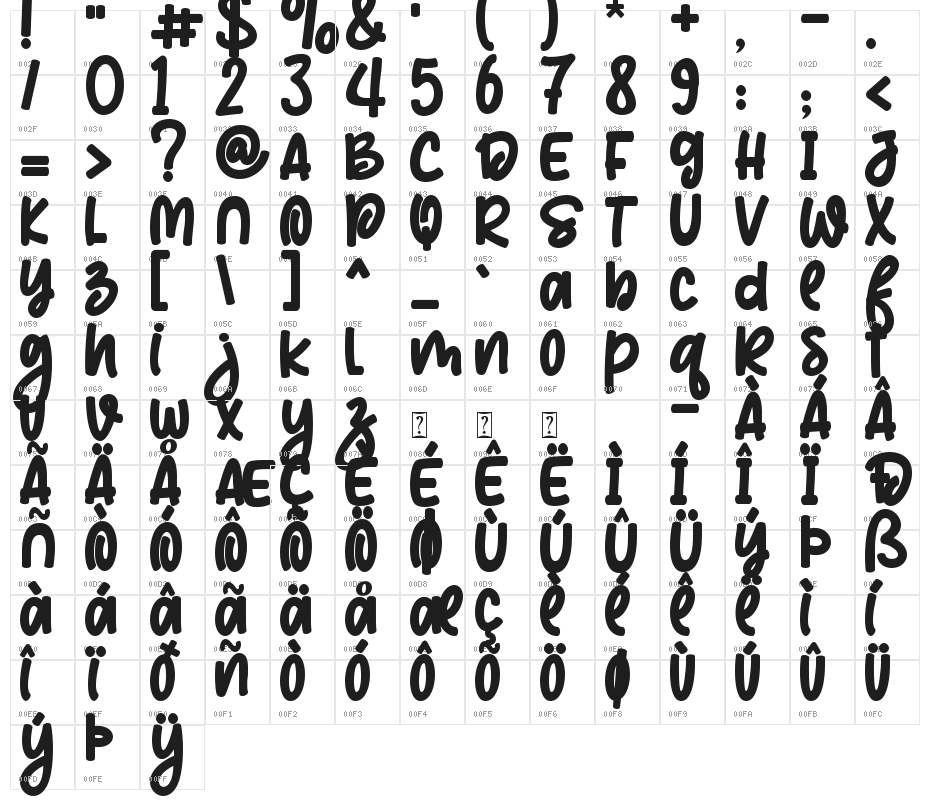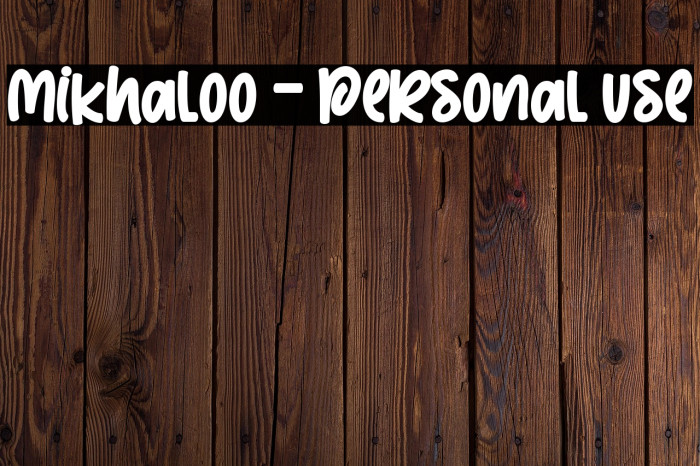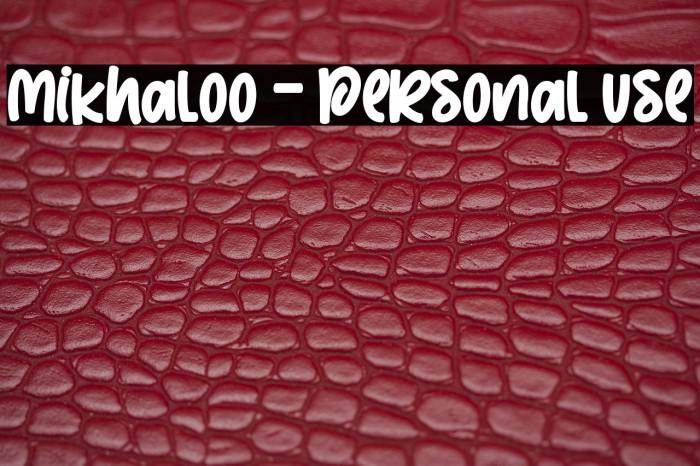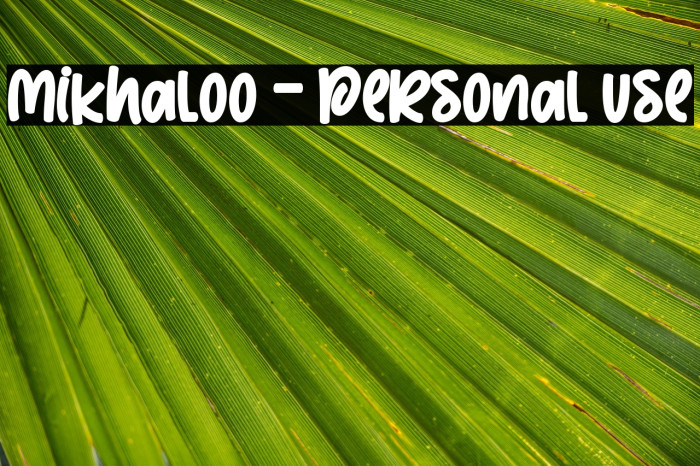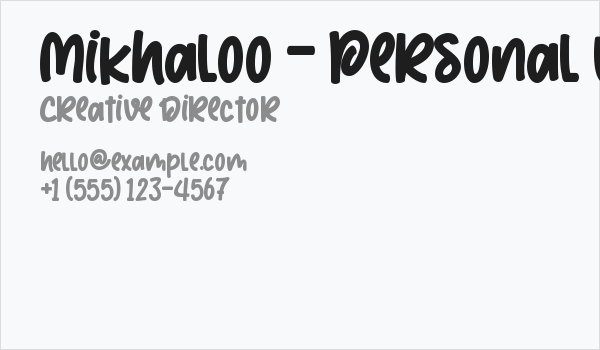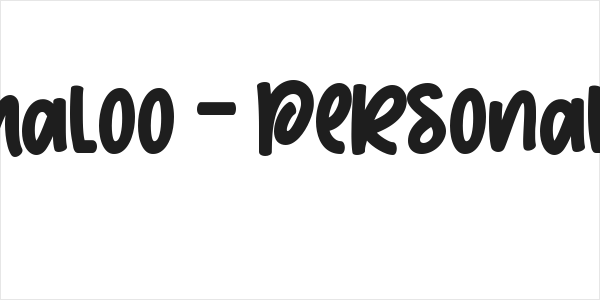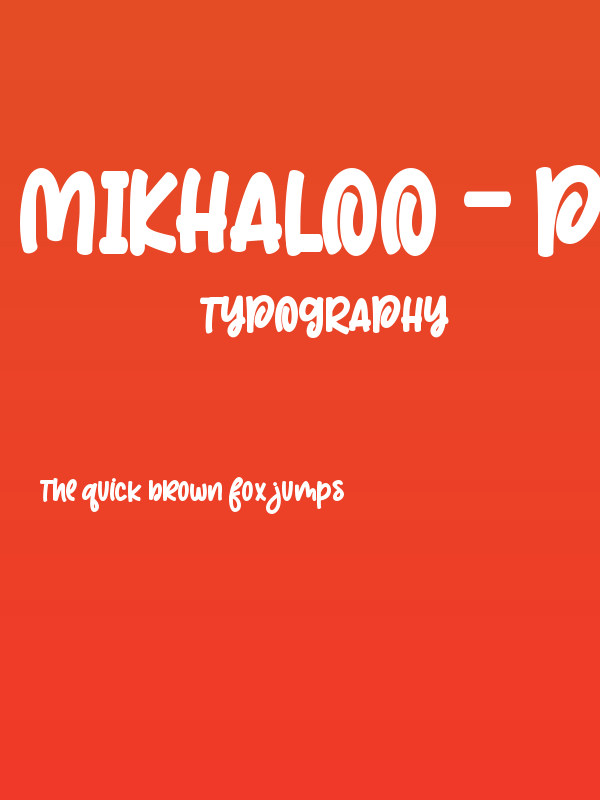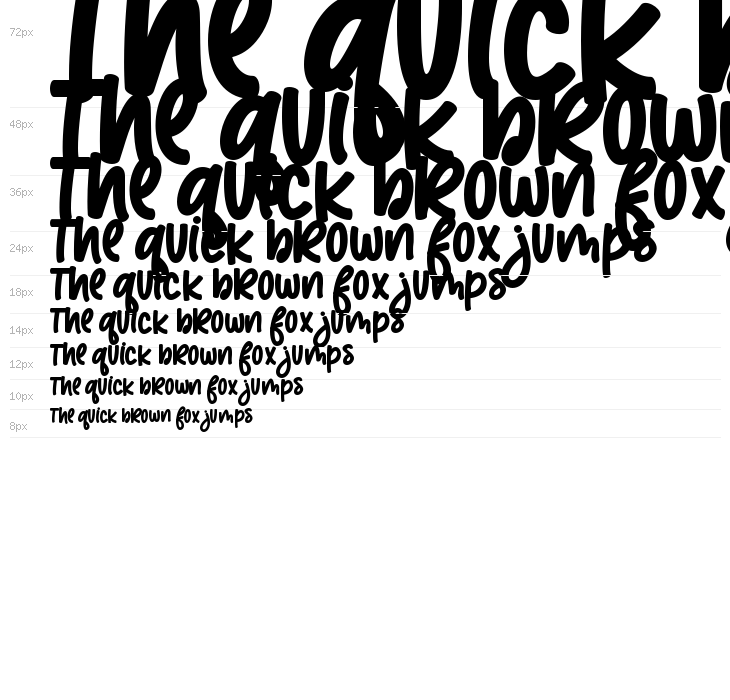
Mikhaloo - Personal use Font
Mikhaloo - Personal use Description
This font features a bold, playful style with a handwritten appearance. The characters are rounded and have a consistent thickness, giving them a friendly and approachable look. The uppercase and lowercase letters maintain a cohesive style, with some letters featuring unique loops and curves that add to the font's charm. The numbers and special characters are equally bold and maintain the playful aesthetic. This font is well-suited for designs that require a personal touch, such as invitations, greeting cards, or children's book covers.
| Overall Style | Playful, Decorative |
| Proposed Projects | Ideal for invitations, greeting cards, children's book covers, and playful branding projects. |